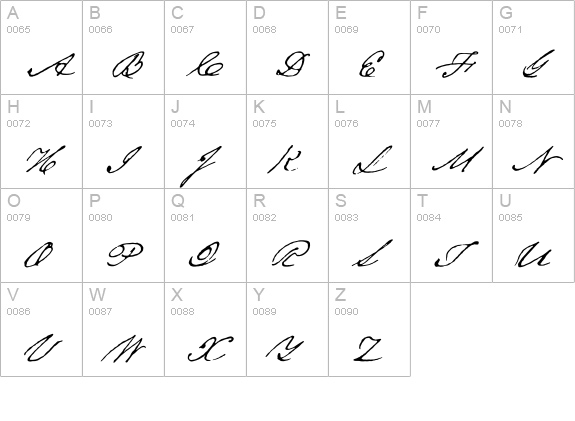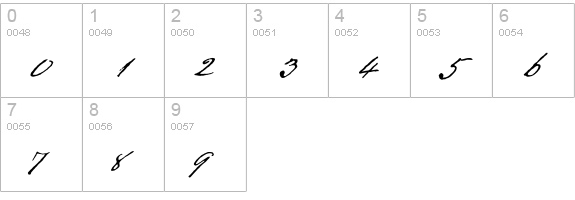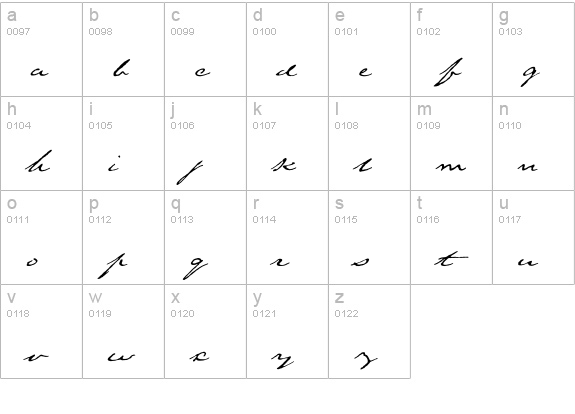
TexasHero Font Details
Introducing TexasHero, a remarkable and captivating font that embodies the spirit of the Lone Star State. With its bold and powerful letterforms, this font exudes confidence and strength, making it the perfect choice for any project that requires a touch of Texan charm. Designed with meticulous attention to detail, TexasHero seamlessly blends classic Western aesthetics with modern typography trends. The result is a truly unique typeface that effortlessly captures the essence of the Wild West, evoking images of vast open plains, rugged landscapes, and the untamed spirit of adventure. But what makes TexasHero even more appealing is that it is free! Yes, you read that right. This exceptional font is freely available to download at FontsMarket.com. Whether you're a designer, a blogger, or simply someone who appreciates quality typography, TexasHero offers you the opportunity to add a touch of Texan flair to your projects, without breaking the bank. With its extensive character set, TexasHero provides versatility and flexibility, allowing you to create visually stunning designs across various mediums. From logos and branding materials to posters, packaging, and social media graphics, this font will elevate your creations to a whole new level of visual impact. So, if you're looking for a font that embodies the spirit of Texas, radiates strength, and is freely available to download, look no further than TexasHero. Visit FontsMarket.com today and unleash your creativity with this captivating typeface.